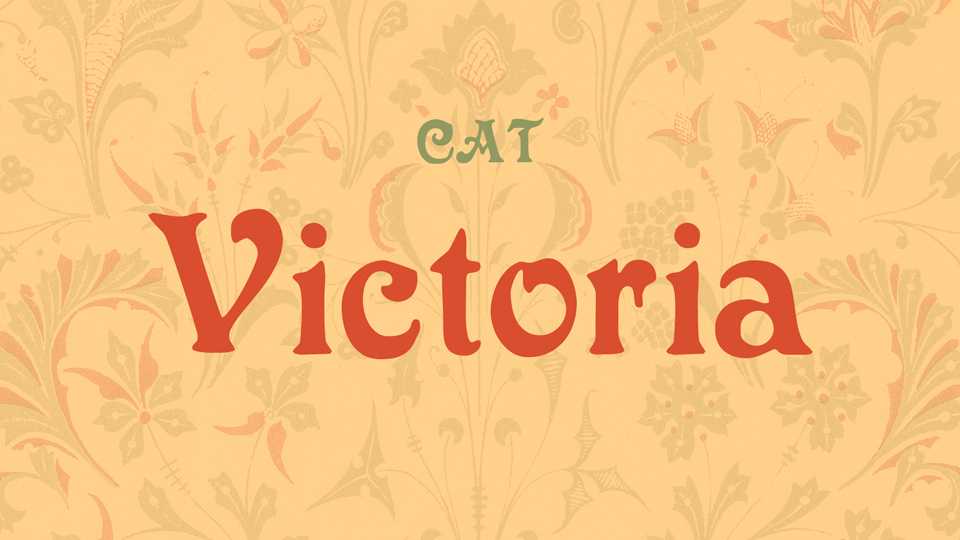
Download Victoria CAT font, an ornate serif typeface, inspired by late 19th century display letterforms. It superbly reflects the refinement of this period in history.